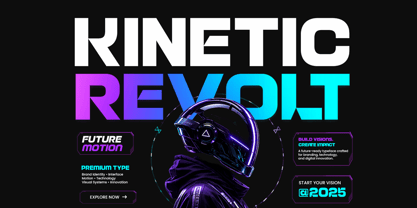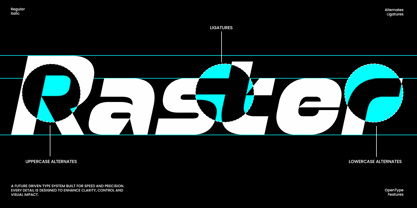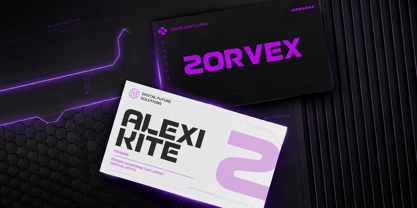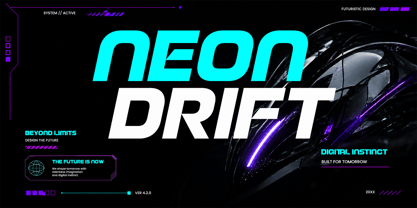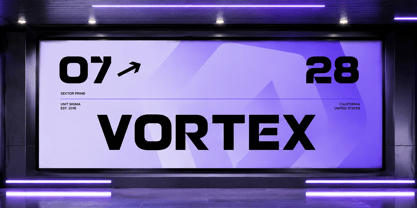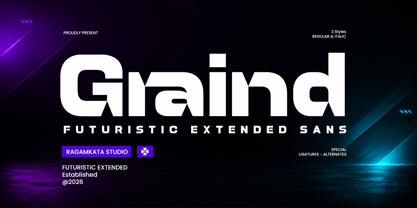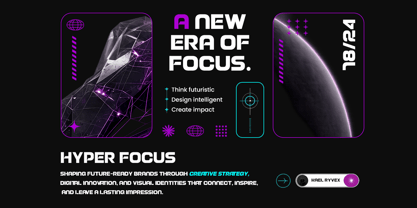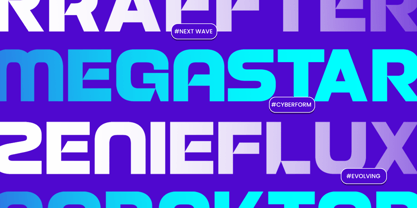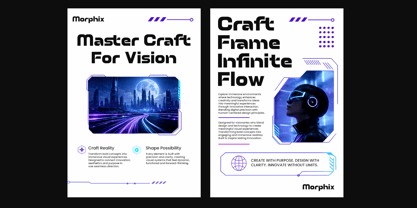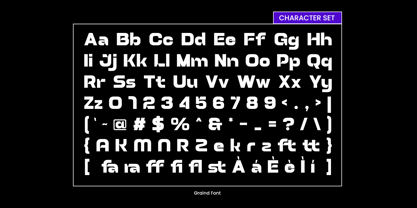
Graind
Die Schriftfamilie Graind wurde von Yogiswhara Dio Prakoso Riadi entworfen und von RagamKata veröffentlicht. Graind enthält 2 Stile und Familienpaketoptionen. Mehr über diese Familie
Graind is a futuristic extended sans font crafted for creators who want to build bold, modern, and technology-driven visual identities. Designed with wide geometric proportions, sharp angles, and clean industrial details, Graind delivers a powerful presence that instantly captures attention. Its contemporary aesthetic makes it an excellent choice for brands, startups, and creative professionals looking to communicate innovation and confidence.
Inspired by futuristic architecture, advanced technology, cyberpunk culture, and digital interfaces, Graind is perfect for logos, branding, gaming, esports, AI projects, automotive campaigns, UI/UX design, product packaging, posters, advertising, motion graphics, and editorial headlines. The distinctive extended letterforms create a dynamic and premium look while maintaining excellent readability in large-format typography.
Graind includes uppercase and lowercase characters, numbers, punctuation, multilingual support, and essential OpenType features to provide maximum flexibility across creative projects. Whether you're designing for print or digital media, this versatile display typeface helps you create striking visuals that stand out with a clean, futuristic, and professional appearance.
• Regular and Italic
• Stylistic Ligatures
• Stylistic Alternates
• Uppercase and Lowercase
• Number, Symbol, and Punctuation
• Multilingual Support